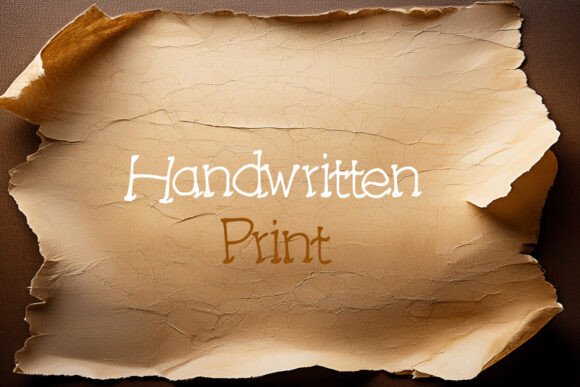
Introduction to Handwritten Print Font
Have you ever sat at your desk, surrounded by scraps of paper, paint-splattered canvases, and scattered design resources, feeling inspired to bring your creative vision to life? The spark of an idea ignites, and you begin to sketch out the perfect design. But, what if you could elevate that spark into a masterpiece, infusing every detail with a unique touch? That’s where the Handwritten Print Font comes in – a game-changing design resource that adds a personal, authentic flair to your projects.
As a designer, you know the value of having a high-quality, versatile font that can breathe life into any creative project. The Handwritten Print Font is the perfect addition to your toolkit, offering a transparent background and a free download that’s just waiting to be used. Whether you’re working on a fashion apparel design, creating engaging stickers, or crafting distinctive branding, this font is the perfect companion to help you stand out in the digital space.
Key Features of Handwritten Print Font
- High-quality, professional design ideal for creative projects, including invitations, posters, and more.
- Unique, handwritten style that adds a personal touch to any design.
- Transparent background option allows for seamless integration with any design element.
Honest Review: Handwritten Print Font
I recently stumbled upon the Handwritten Print Font, and I must say it’s a great addition to any design resource library. The font is free to download, which is always a plus, and it’s incredibly versatile for a wide range of creative projects.
What I love about this font is its high quality and the attention to detail that went into creating it. The characters are well-designed and have a beautiful, authentic feel to them. ✨ The font is perfect for adding a personal touch to invitations, greeting cards, or even signage.
Here are some of the font’s key features:
- High-quality, detailed characters
- Translucent background option for easy layering
- Perfect for creative projects that require a handwritten feel
One limitation I’ve noticed is that the font may not be suitable for large-scale text or complex typography. ⚠️ It’s best used for small to medium-sized text where the handwritten feel can shine.
Overall, I’m impressed with the Handwritten Print Font and would definitely recommend it to designers looking for a high-quality, free font to add to their design resource library.
Handwritten Print Font is a versatile design resource that can add a personal touch to your creative project. With its unique, high-quality design, it’s perfect for projects that require a touch of elegance and sophistication.
Tips for Getting the Most Out of Handwritten Print Font
Use the font on a transparent background to create a subtle, elegant look. Experiment with different font sizes and styles to add visual interest to your design. Use the font in combination with other design elements, such as images and graphics, to create a cohesive and visually appealing design.
Handwritten Print Font is perfect for a variety of creative projects, including wedding invitations, baby shower invitations, and greeting cards. It’s also great for creating custom signage, labels, and other design elements that require a personal touch.